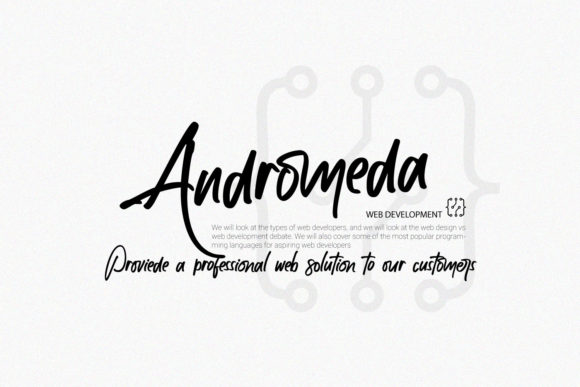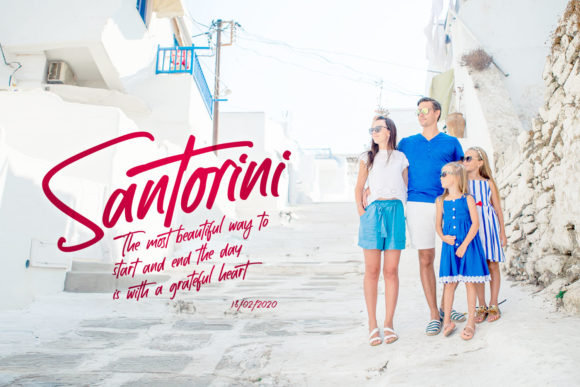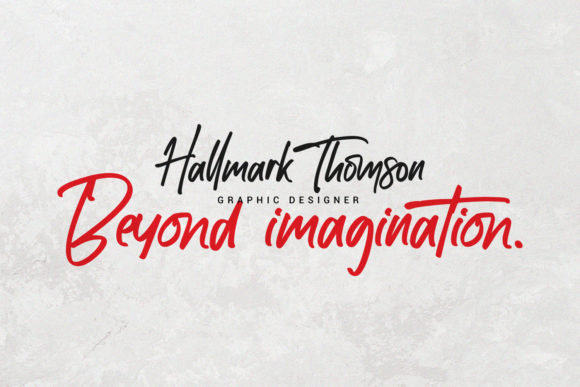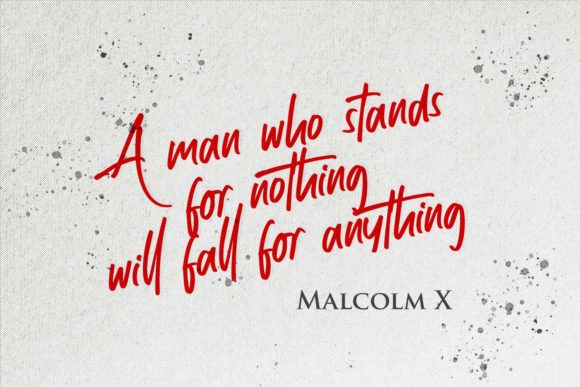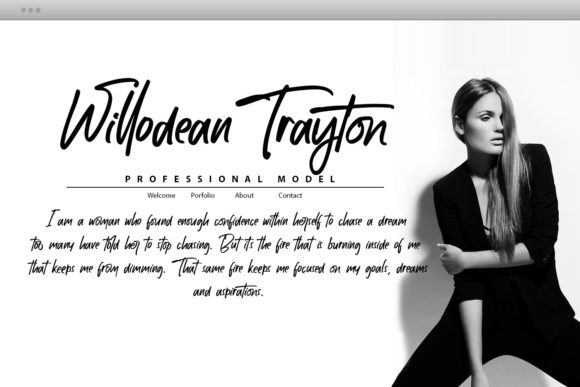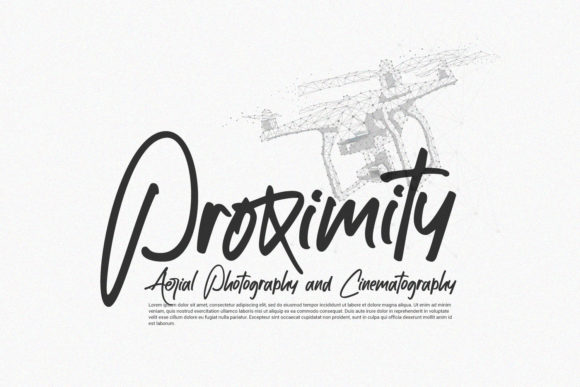
Introducing Brotherhood Font: Elevate Your Designs with a Bold and Playful Touch
Are you tired of using the same old fonts in your design projects? Do you want to add a touch of personality and whimsy to your creations? Look no further than Brotherhood Font, a bold and fun script that’s sure to elevate your designs to the highest level! In this article, we’ll take a closer look at Brotherhood Font, its features, and how you can use it to take your designs to new heights.
What is Brotherhood Font?
Brotherhood Font is a modern script font that’s perfect for designers and crafters looking to add a playful touch to their projects. With its bold and fun design, Brotherhood Font is ideal for a wide range of applications, from branding and advertising to crafting and DIY projects. Its unique and eye-catching design makes it perfect for creating eye-catching headlines, titles, and slogans that are sure to grab attention.
Key Features of Brotherhood Font
So, what makes Brotherhood Font so special? Here are just a few of its key features:
- Bold and Fun Design: Brotherhood Font features a bold and fun design that’s perfect for creating eye-catching headlines and titles.
- Playful Feel: With its playful feel, Brotherhood Font is perfect for designers and crafters who want to add a touch of whimsy to their projects.
- Highly Versatile: Brotherhood Font is highly versatile and can be used for a wide range of applications, from branding and advertising to crafting and DIY projects.
- Easily Readable: Despite its bold design, Brotherhood Font is easily readable, making it perfect for use in body text as well as headlines.
How to Use Brotherhood Font in Your Designs
Now that we’ve covered the features of Brotherhood Font, let’s take a look at how you can use it in your designs. Here are a few ideas to get you started:
- Create Eye-Catching Headlines: Use Brotherhood Font to create eye-catching headlines and titles that are sure to grab attention.
- Add a Playful Touch to Your Branding: Add a playful touch to your branding and advertising materials with Brotherhood Font.
- Elevate Your Crafting Projects: Use Brotherhood Font to elevate your crafting and DIY projects, from papercrafting to woodworking.
- Experiment with Different Colors and Textures: Experiment with different colors and textures to add depth and interest to your designs.
Tips and Tricks for Getting the Most Out of Brotherhood Font
Here are a few tips and tricks for getting the most out of Brotherhood Font:
- Use it Sparingly: While Brotherhood Font is bold and eye-catching, it can be overwhelming if used too much. Use it sparingly to create emphasis and add visual interest.
- Experiment with Different Pairings: Experiment with different font pairings to find the perfect combination for your design.
- Pay Attention to Kerning and Tracking: Pay attention to kerning and tracking to ensure that your text is easily readable and visually appealing.
In conclusion, Brotherhood Font is a bold and fun script that’s perfect for designers and crafters looking to add a playful touch to their projects. With its highly versatile design and easily readable text, Brotherhood Font is ideal for a wide range of applications. Whether you’re looking to create eye-catching headlines, add a playful touch to your branding, or elevate your crafting projects, Brotherhood Font is the perfect choice. So why wait? Download Brotherhood Font today and start elevating your designs to the highest level!
Brotherhood Font – Key Takeaways:
- Bold and fun script font
- Playful feel
- Highly versatile
- Easily readable
- Perfect for designers and crafters